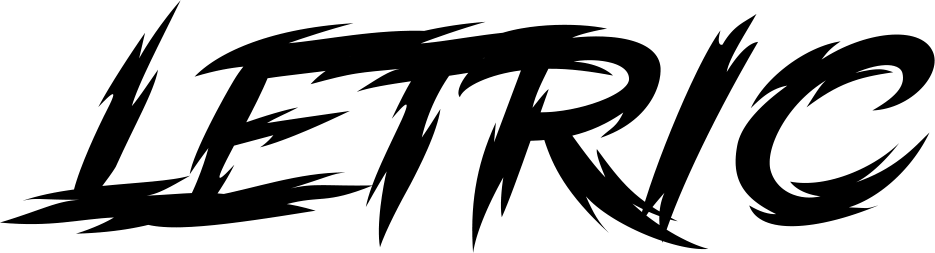
Letric Font
Letric font has sharp font styles that we will introduce in the following. This font only supports uppercase letters and is used in many title posters, sports clubs, and boxing class flyers.
If you pay attention to the characters, it looks like the skin of wild animals like wolves and bears, so you can use it in Halloween flyers, horror movie posters, vampires, and animals even though it does not have small characters and letters.